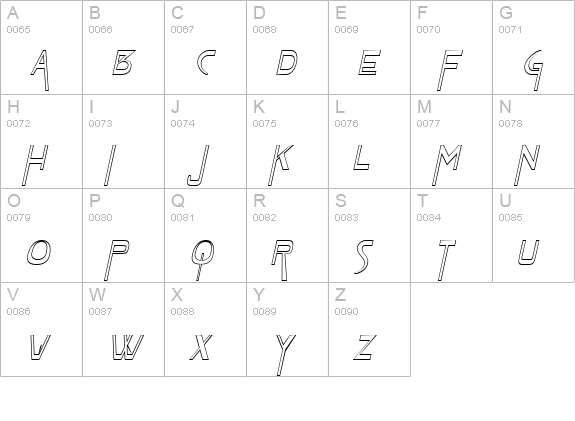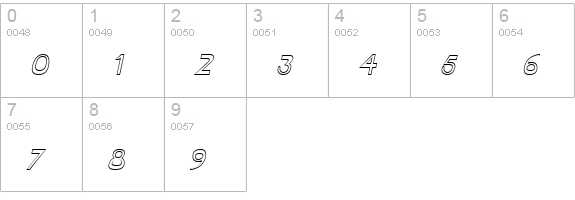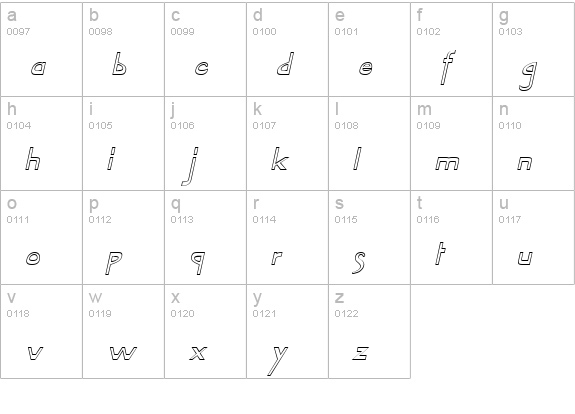
Tablet Hollow Italic is a distinctive, italic variant in the Tablet typeface family \xE2\x80\x94 well suited to design and typography projects.
Tablet Hollow Italic font is a stunning and unique typeface that brings a touch of sophistication and elegance to any design project. Its sleek and modern design, combined with its hollowed-out letters, adds a contemporary and eye-catching element to your work. This italic font is perfect for adding a stylish twist to various design applications, including logos, headlines, titles, and more. Its subtle slant and hollowed appearance give it a distinct and captivating look, making it stand out from the crowd. Tablet Hollow Italic font is not only visually striking but also highly versatile. It can effortlessly adapt to different design styles, whether it's a minimalist and clean layout or a bold and expressive composition. The font's unique characteristics allow it to make a strong statement while maintaining readability and legibility. The best part is that Tablet Hollow Italic font is available for free download at FontsMarket.com. This means that you can easily access and use this remarkable typeface without any cost. It's a fantastic opportunity to add a touch of creativity and elegance to your designs without breaking the bank. So, if you're looking for a captivating and versatile font that will elevate your design projects, Tablet Hollow Italic font is the perfect choice. Download it for free at FontsMarket.com and unleash your creativity with this exceptional typeface.